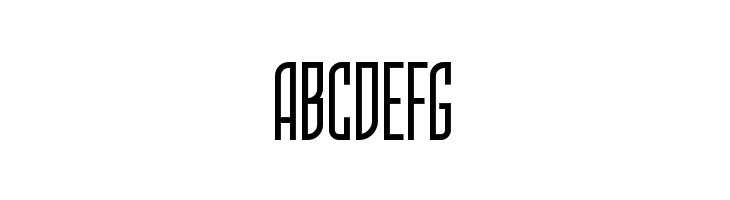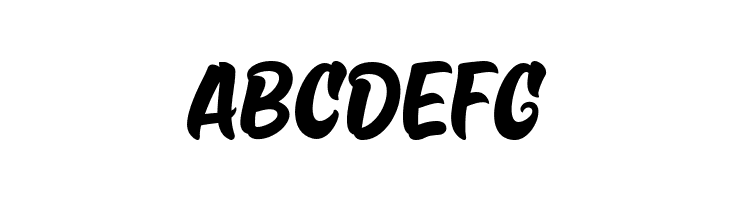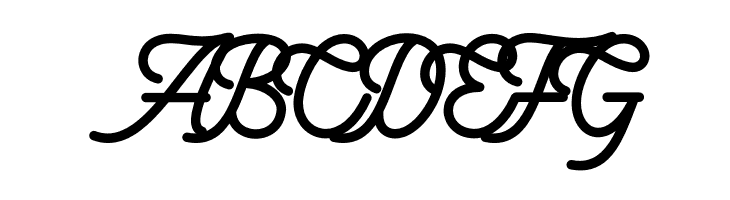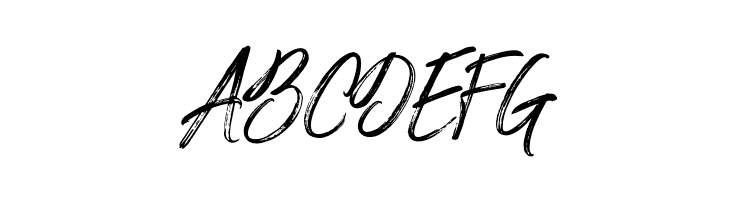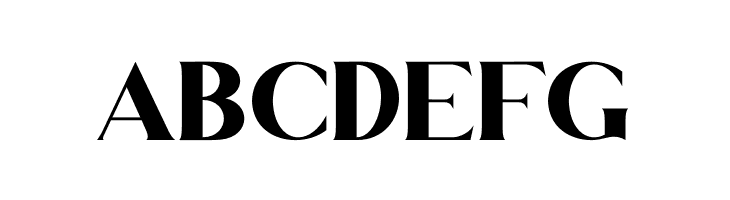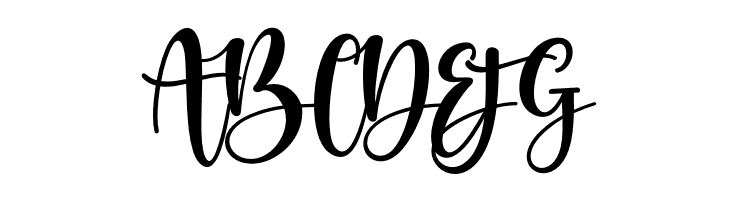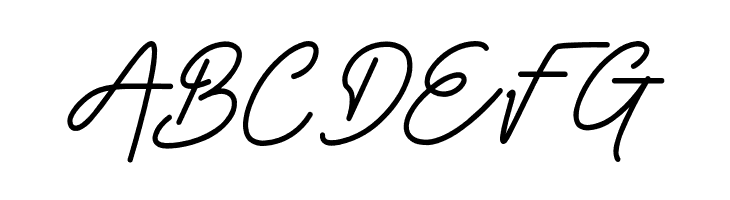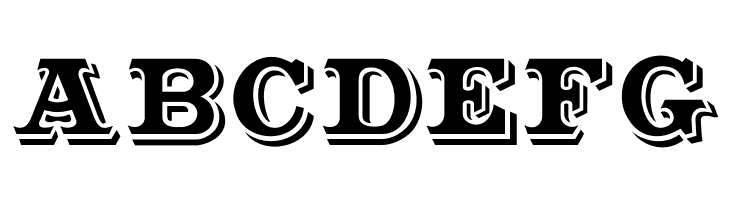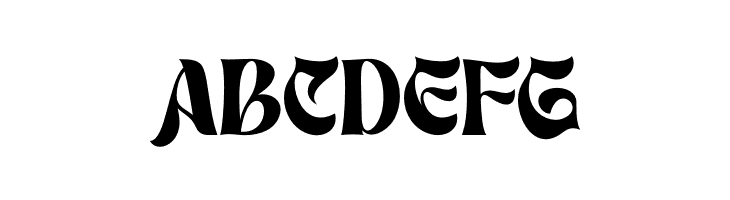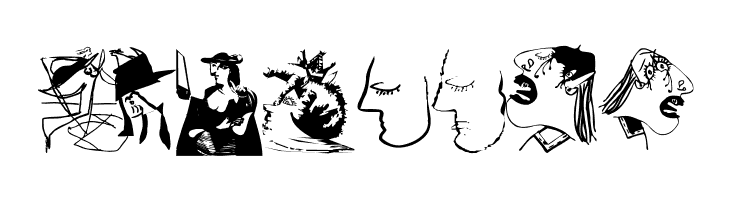
A tall, narrow, and modern font with a sleek, minimalistic design.
A bold, flowing script font with elegant loops and decorative flair.
A bold, dynamic script font with a playful and energetic style.
A bold, cursive script font with smooth, interconnected letters.
A bold, energetic script font with flowing, connected strokes.
A dynamic, brush-style font with expressive, fluid strokes.
An elegant and flowing script font with intricate letterforms and graceful curves.
A bold serif font with high contrast and angular serifs, exuding sophistication and authority.
A bold, high-contrast serif font with a modern and elegant style.
A dynamic and elegant script font with flowing, cursive letterforms.
An elegant and flowing script font with bold, expressive characters.
A flowing, cursive script with elegant loops and artistic flair.
A bold, distressed font with a grunge texture and rugged appearance.
A flowing, elegant script font with ornate uppercase and smooth lowercase letters.
A fluid and elegant script font with a handwritten charm.
Abstract geometric patterns with optical illusion effects.
A bold, decorative serif font with shadow effects for a vintage yet modern look.
A bold, decorative font with high contrast and playful curves.
A lively, cursive font with a fluid and elegant handwriting style.
An artistic and abstract font inspired by surrealist and cubist art.
An artistic collection of illustrations inspired by a modernist style, not a traditional font.
An artistic, Picasso-inspired font with abstract illustrations replacing traditional characters.